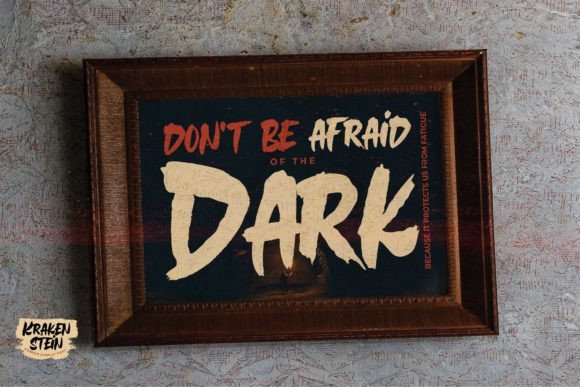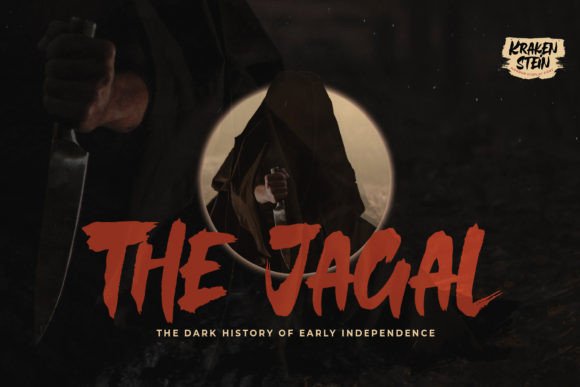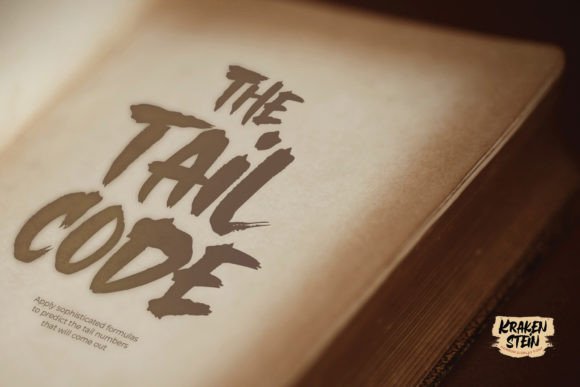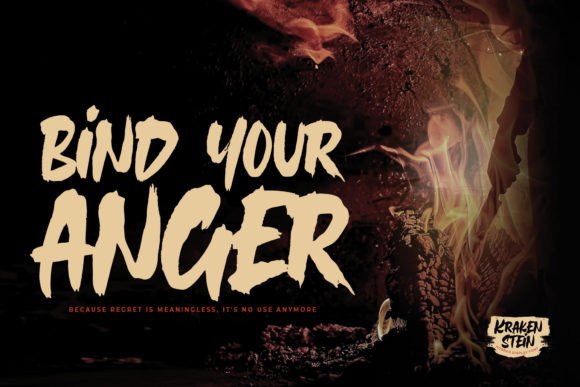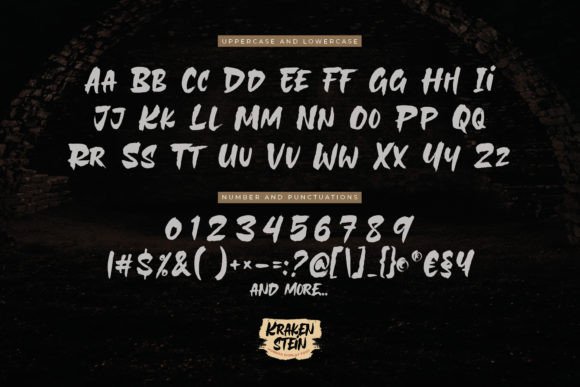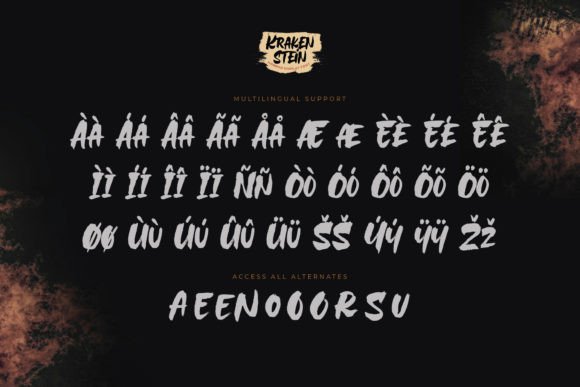
Introduction to Krakenstein Font
Have you ever been in the middle of a creative project, staring at a blank page, and suddenly a spark of inspiration strikes? The words start flowing, and your idea begins to take shape. That’s the magic of great design, and it’s exactly what the Krakenstein Font is designed to unlock.
As a designer, you know how crucial the right font can be to bringing your vision to life. With its unique blend of elegance and edginess, the Krakenstein Font is the perfect addition to any project. Whether you’re working on a high-end brand identity or a free download for a creative community, this font is sure to make a statement.
Key Features of Krakenstein Font
- Unique, hand-drawn design with a touch of horror and mystery, perfect for creative projects.
- High-quality font with a transparent background, ideal for use on dark or gradient backgrounds.
- Designed to evoke a sense of eeriness and foreboding, making it perfect for horror-themed creative projects.
- Comes with a comprehensive character set, including uppercase and lowercase letters, numbers, and punctuation marks.
Honest Review: Krakenstein Font
I recently came across the Krakenstein Font and was excited to give it a try for my next creative project. The font has a unique and quirky design that I think could add a lot of personality to any design.
Here are some of the things that I think work well with the Krakenstein Font:
- ✨ High quality design that looks great on a variety of backgrounds, including a transparent background.
- ✨ Easy to read and understand, even at smaller font sizes.
- ⚠️ Limited character set, which may not be ideal for longer blocks of text.
- ⚠️ Not as versatile as some other fonts, which may limit its use in certain creative projects.
Overall, I think the Krakenstein Font is a great addition to any designer’s toolkit. While it may not be the most versatile font out there, it’s a great option for designers looking for a unique and high-quality design resource for their next creative project.
The Krakenstein Font is perfect for a variety of creative projects, including graphic design, branding, and advertising. It’s also great for creating eye-catching social media graphics and presentations.